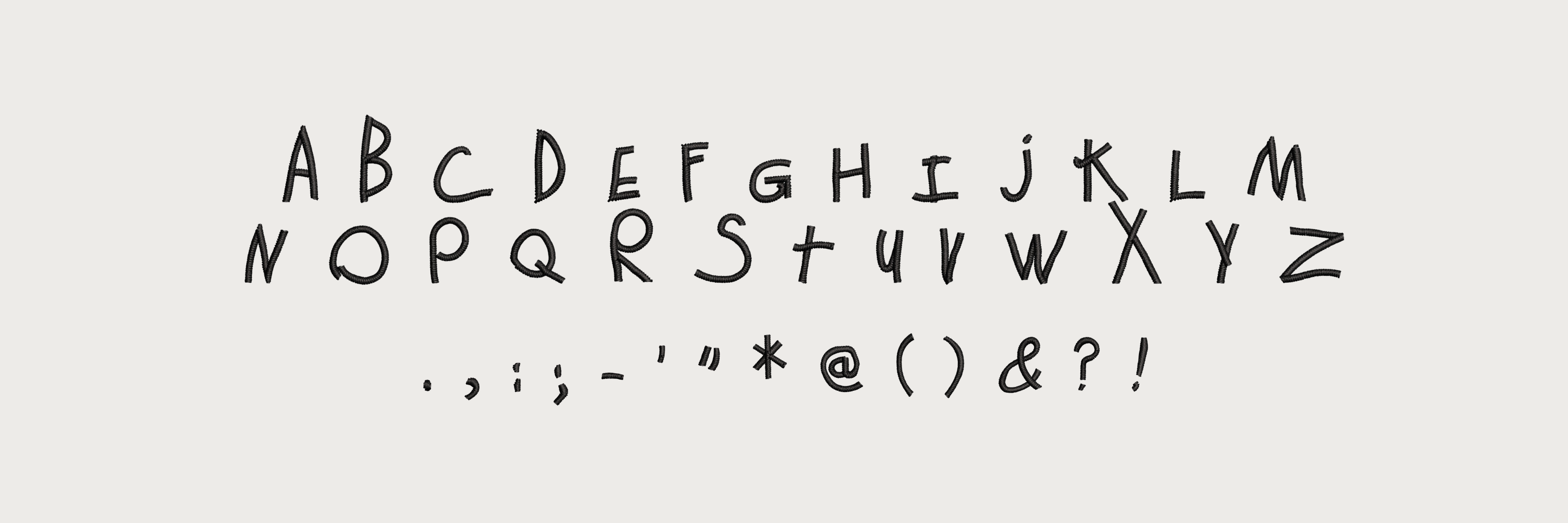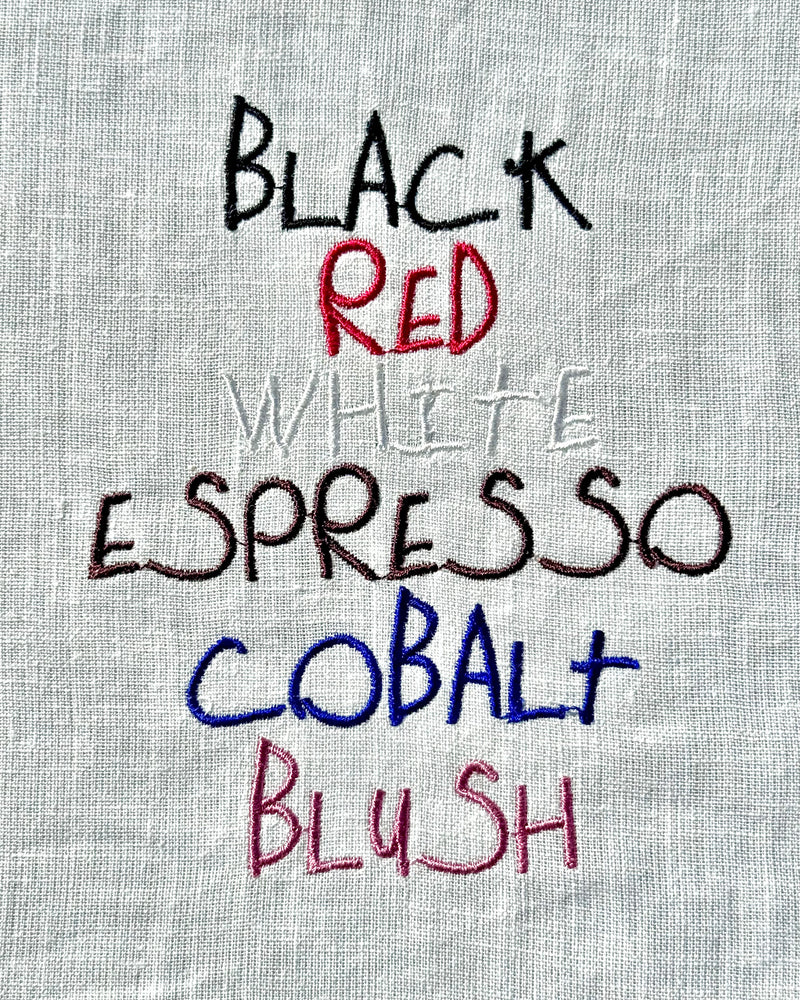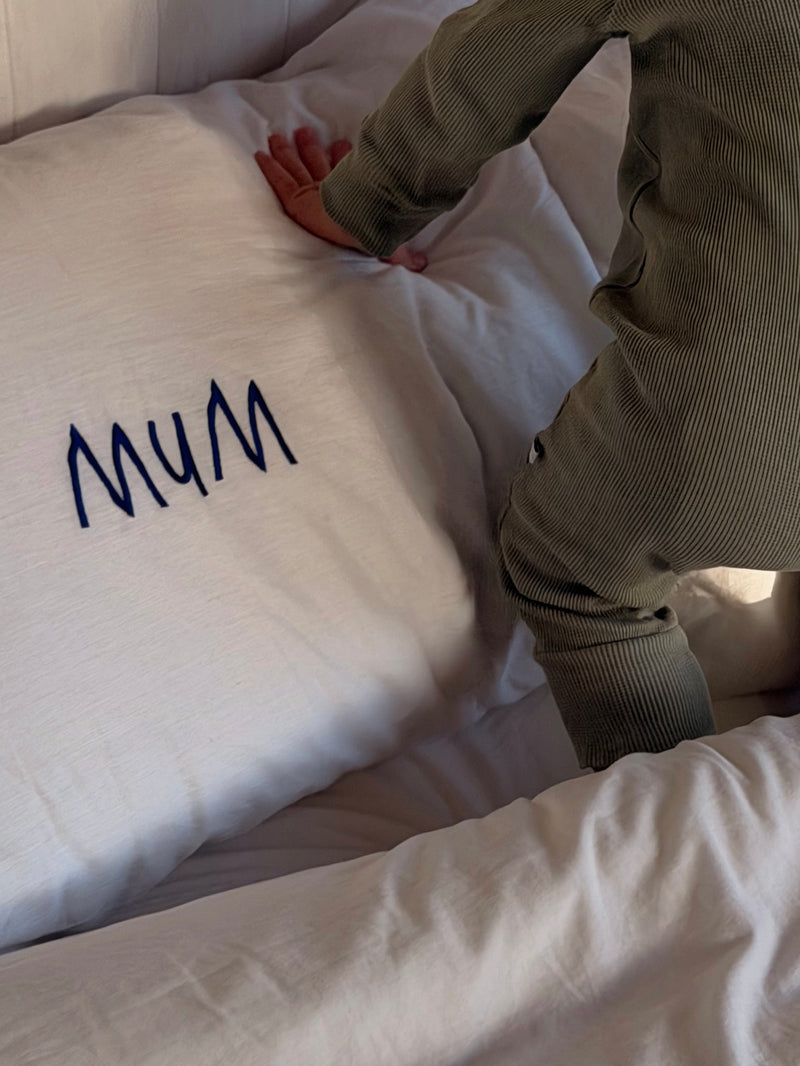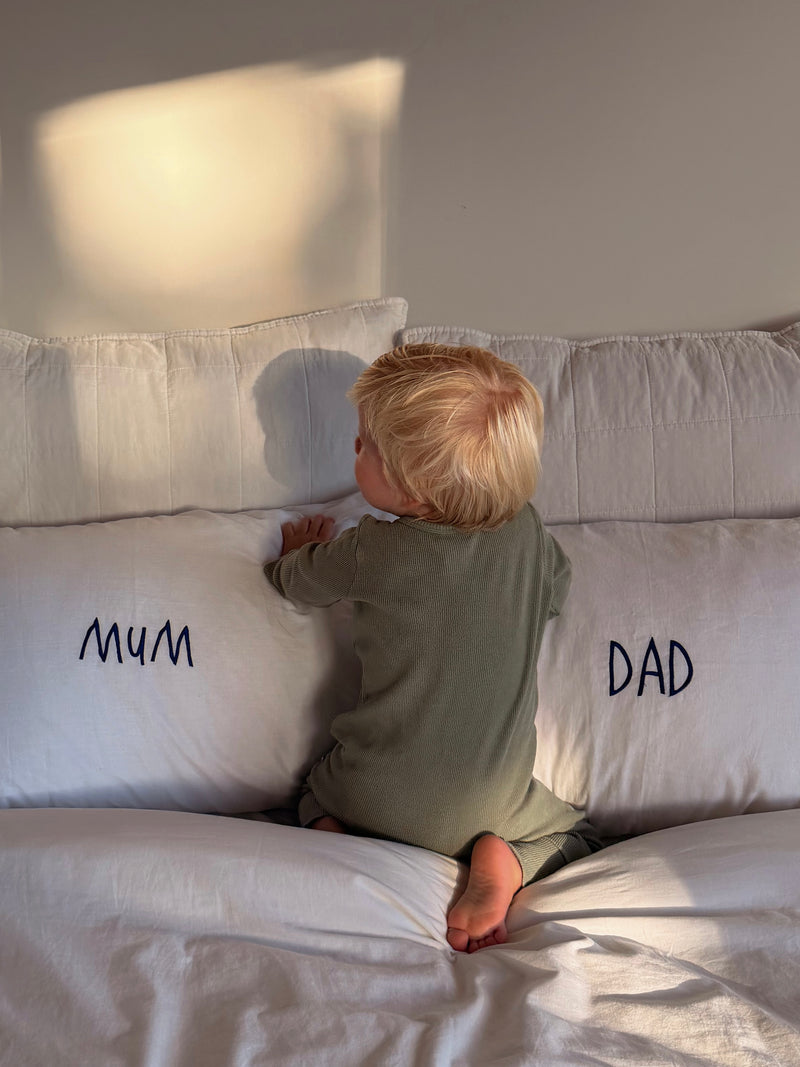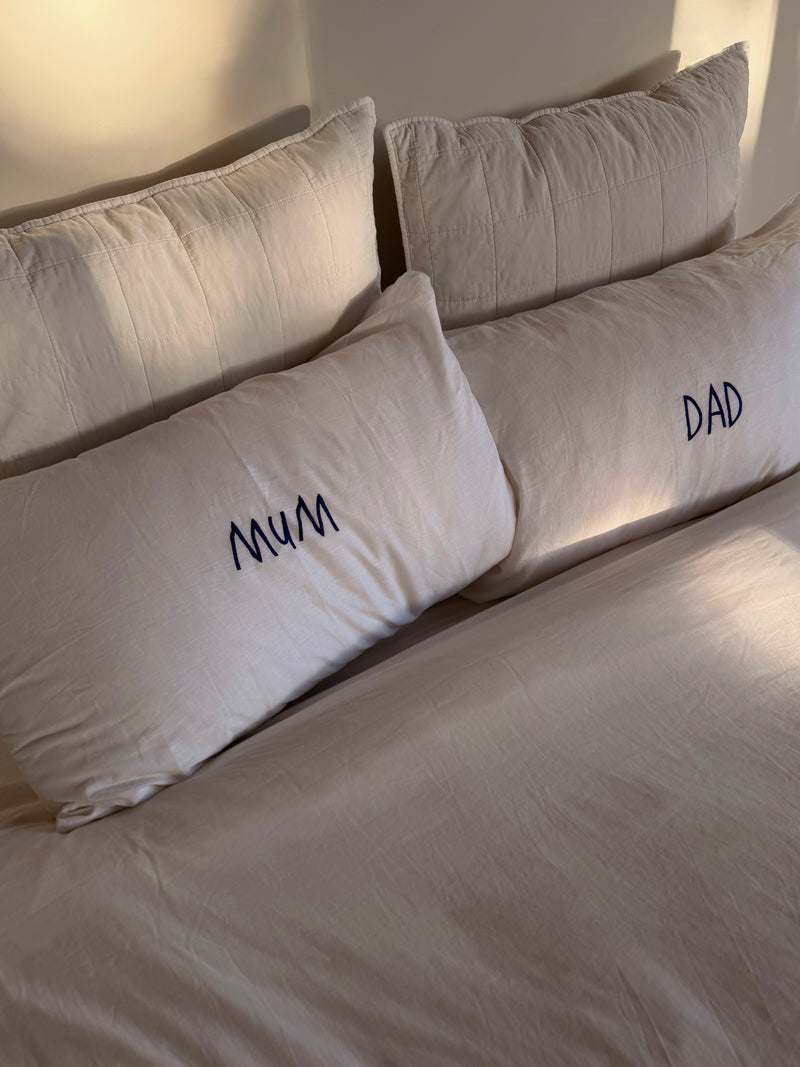
The Angelica Font
Our custom embroidery font Angelica is a playful font to add personality and fun to your custom design. Browse the full offering of this font below to help you to envision your custom embroidery piece.
Available in upper case only.